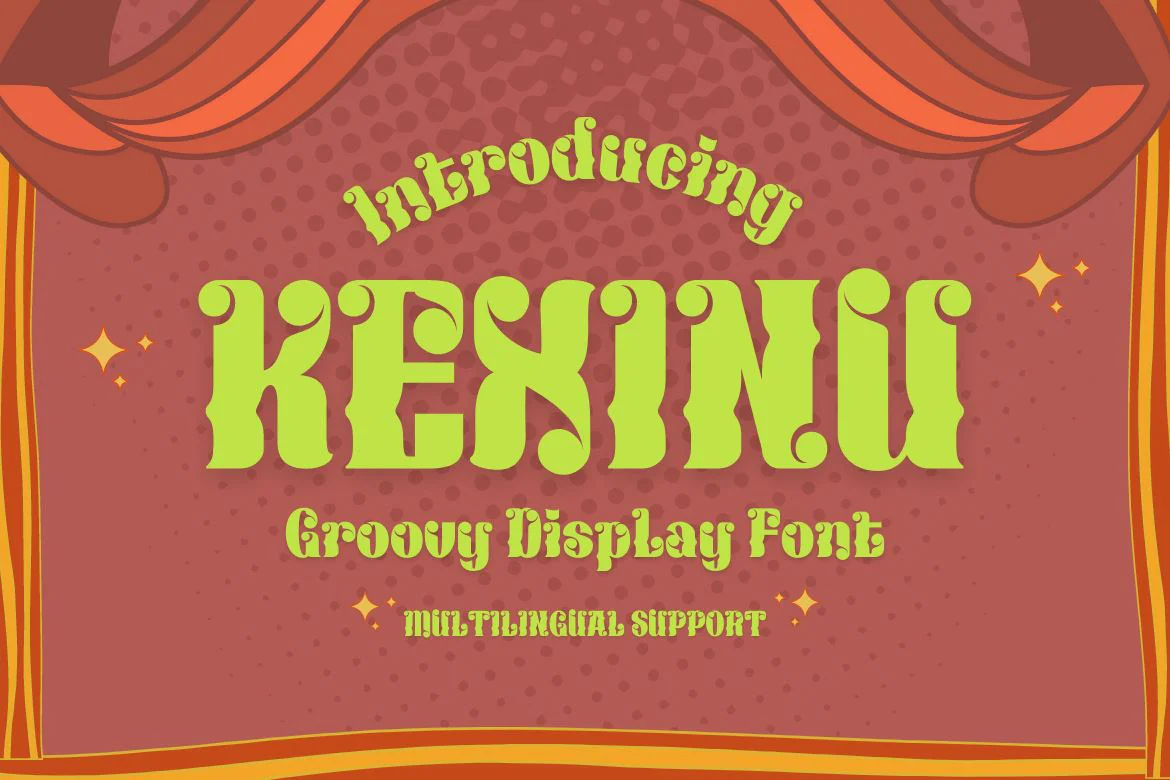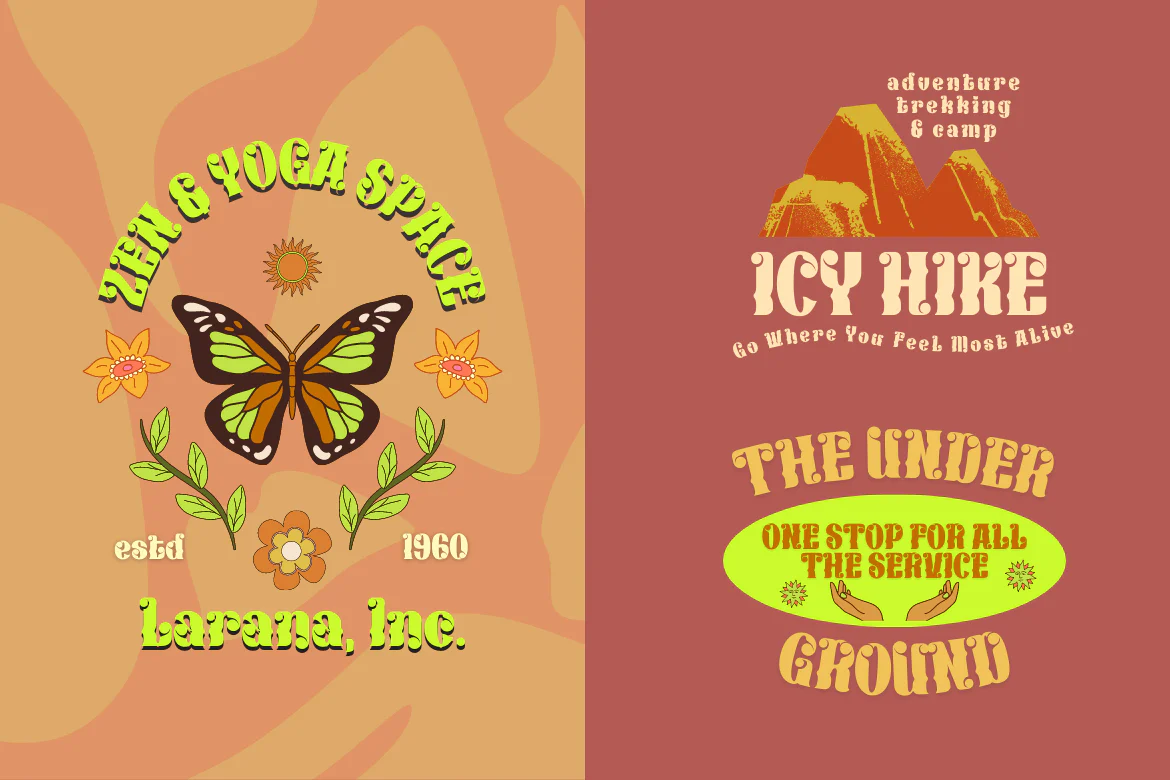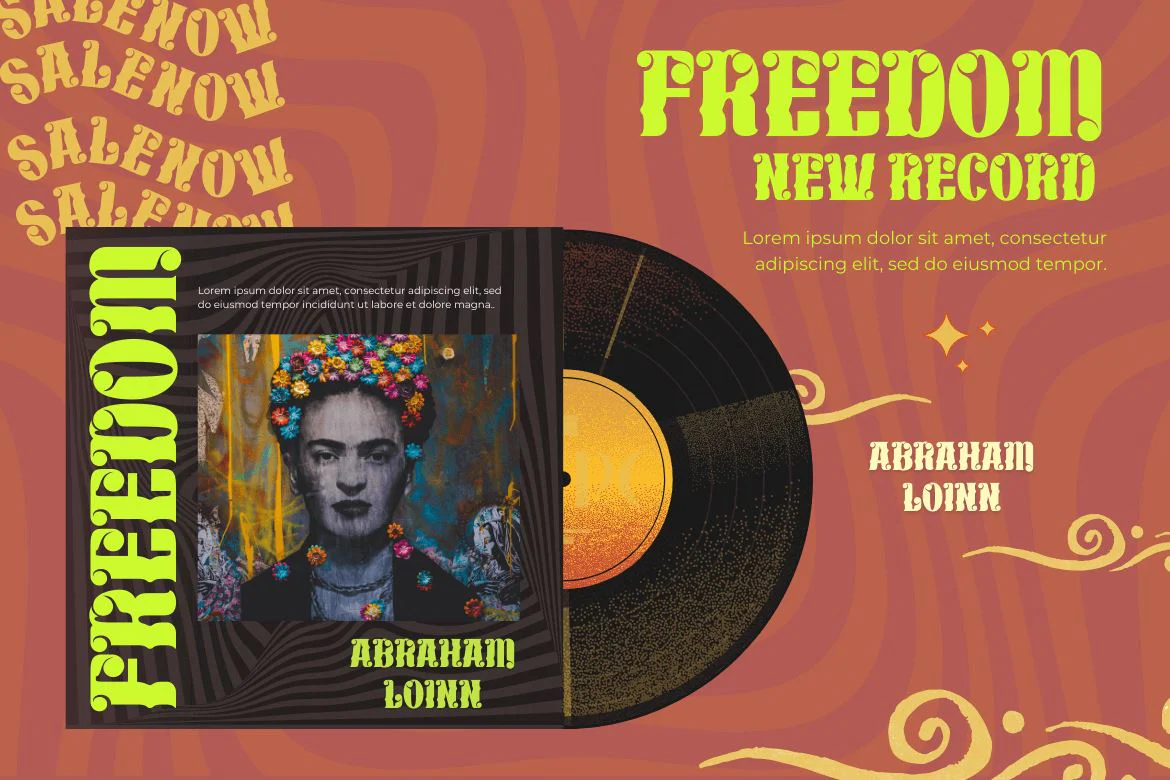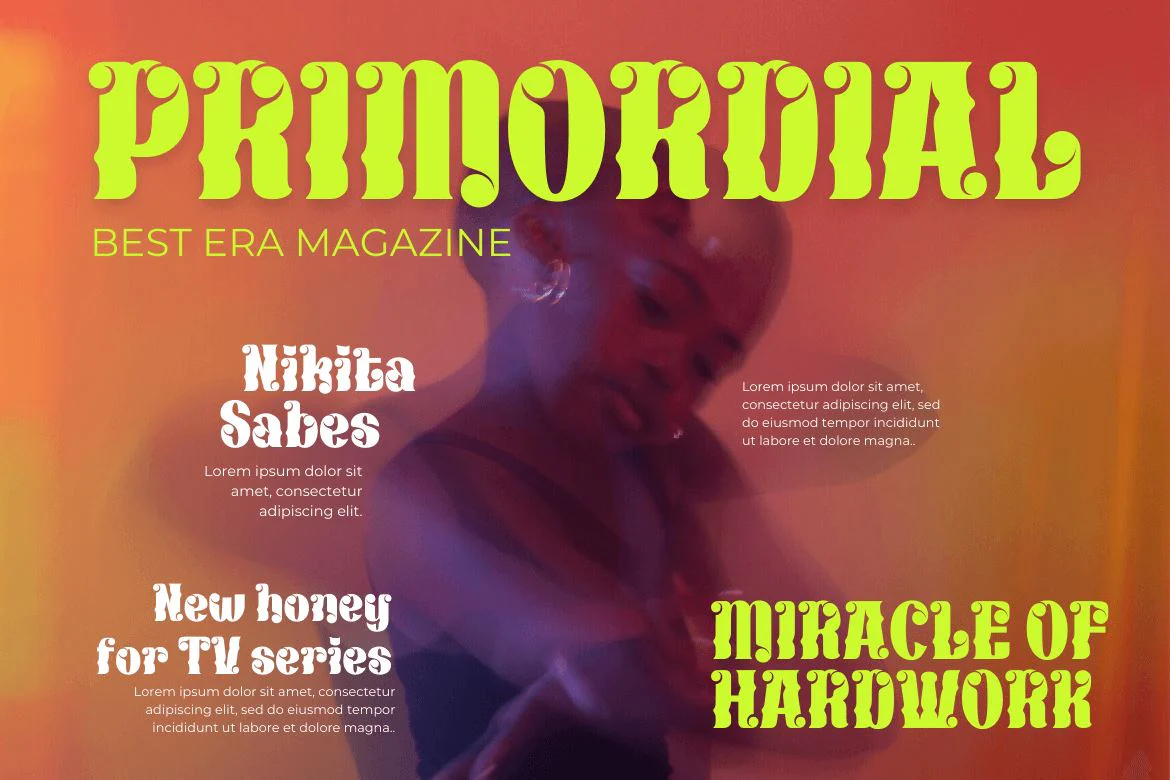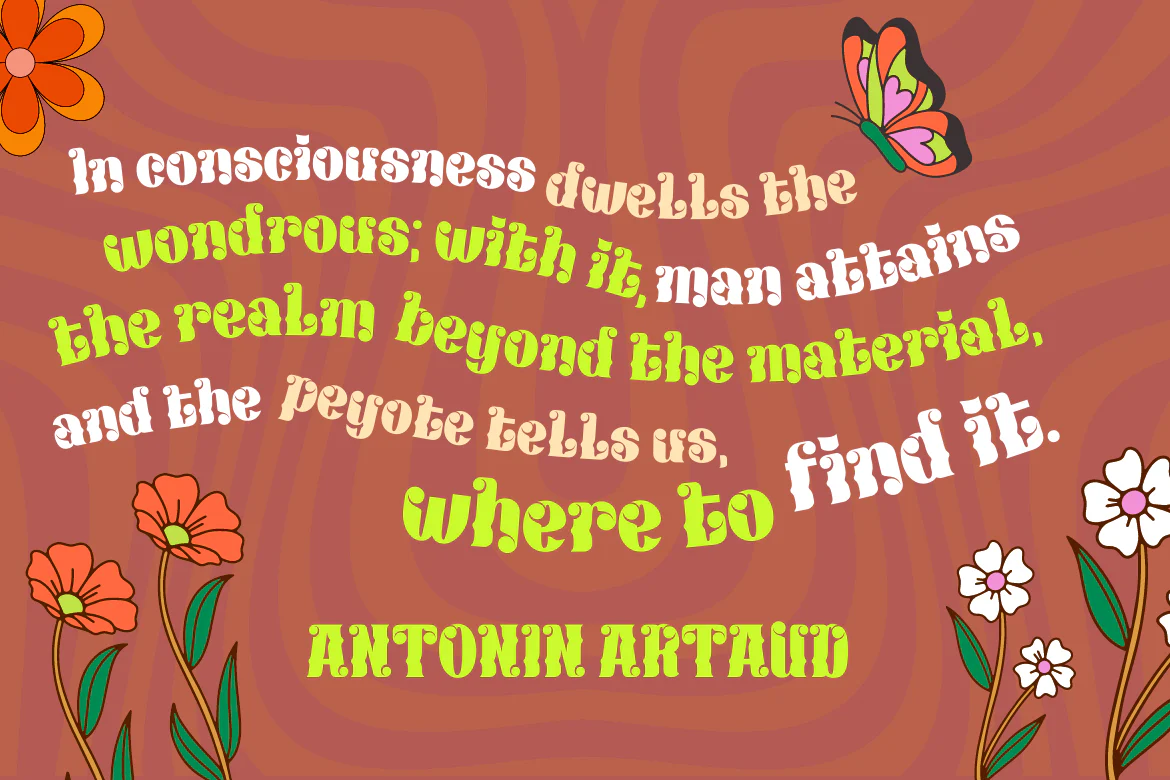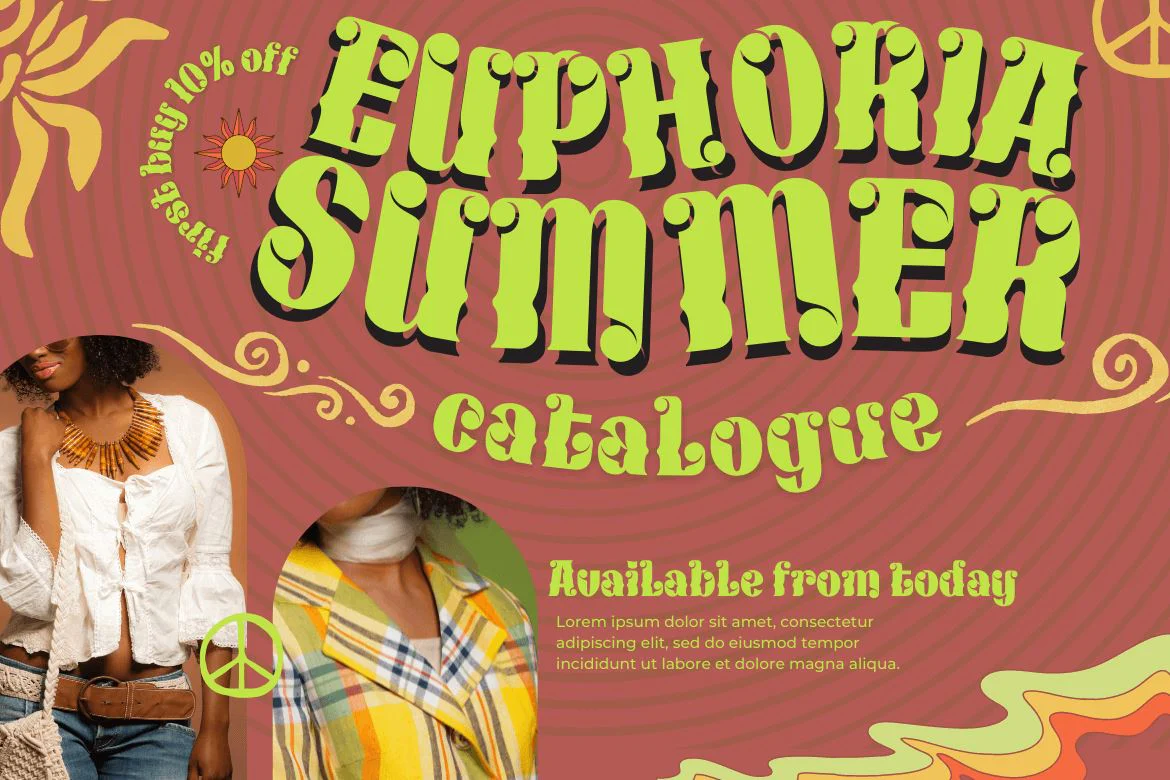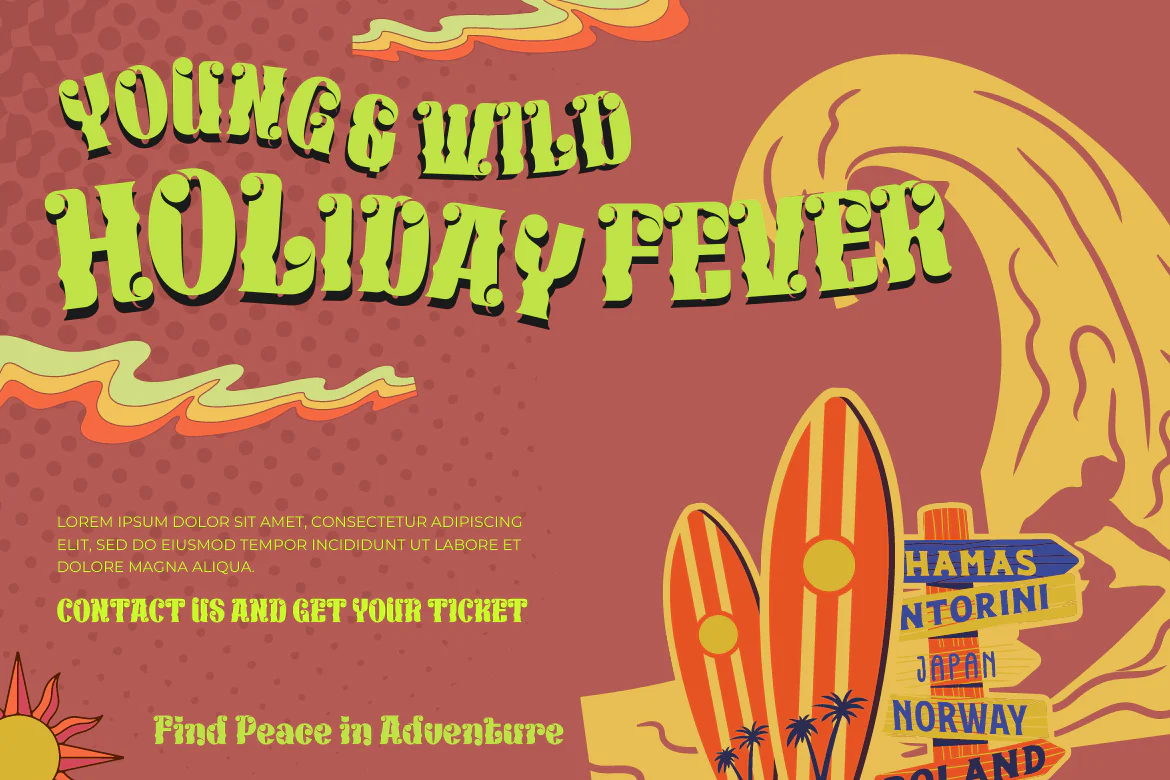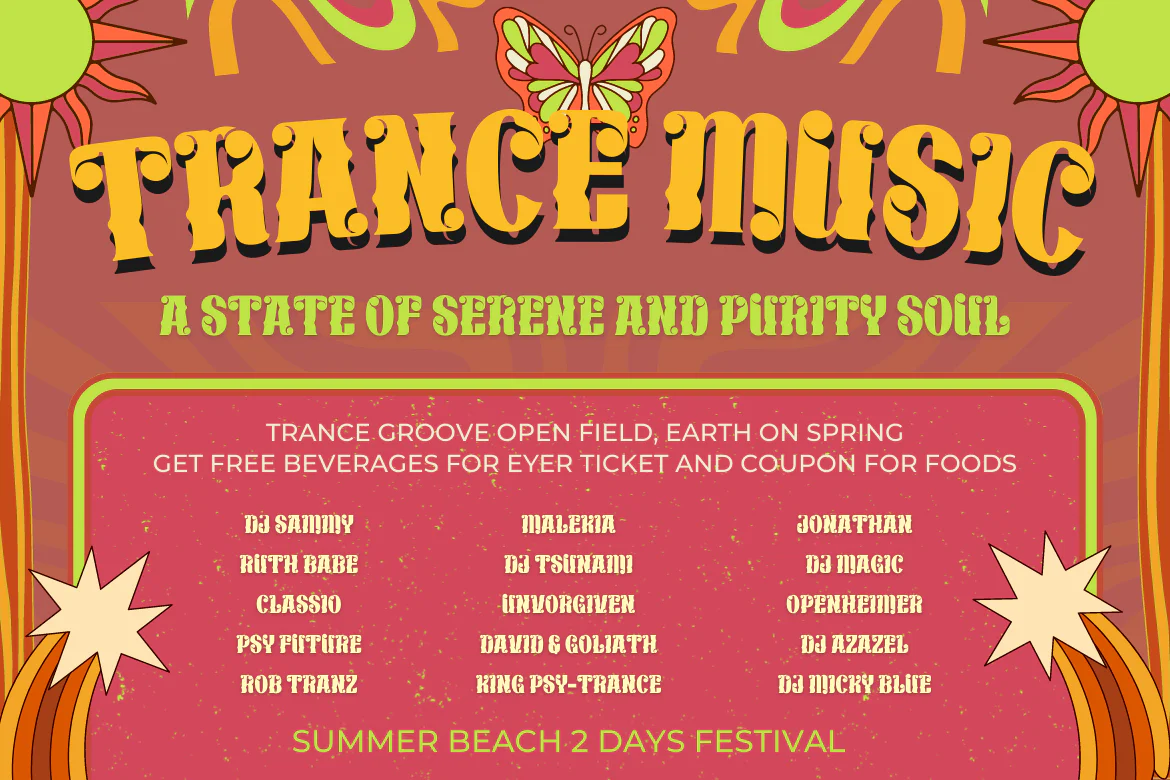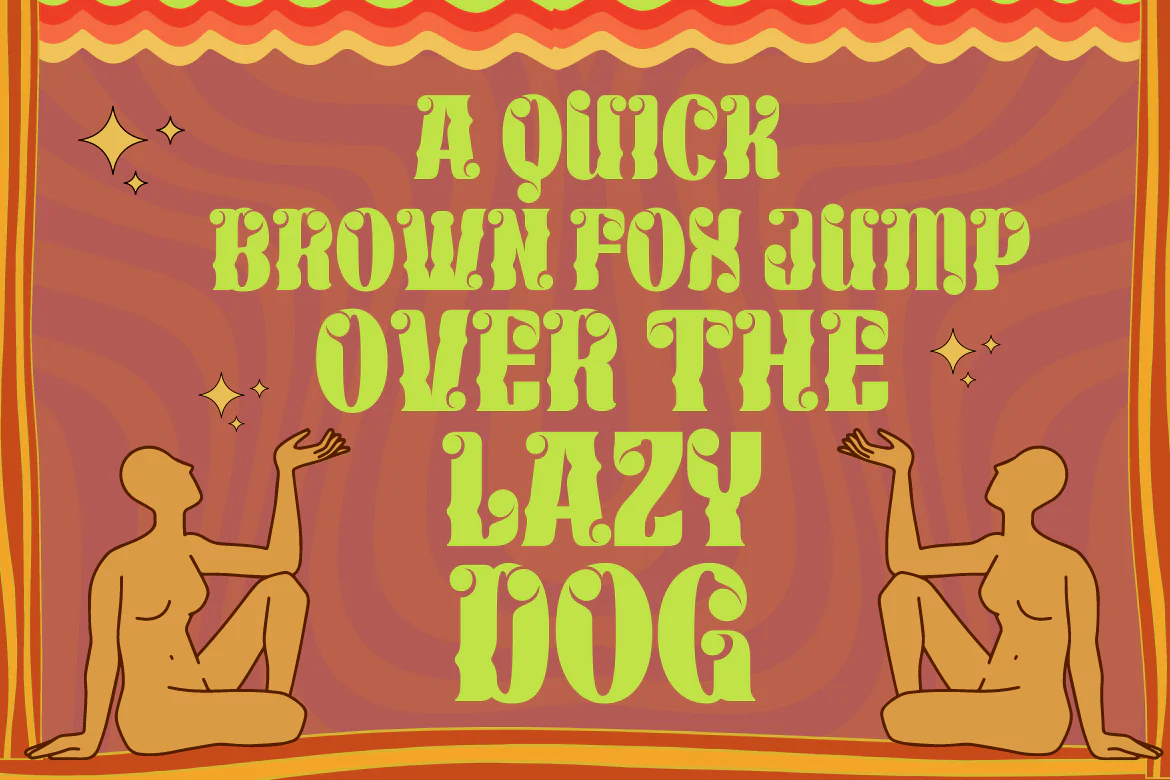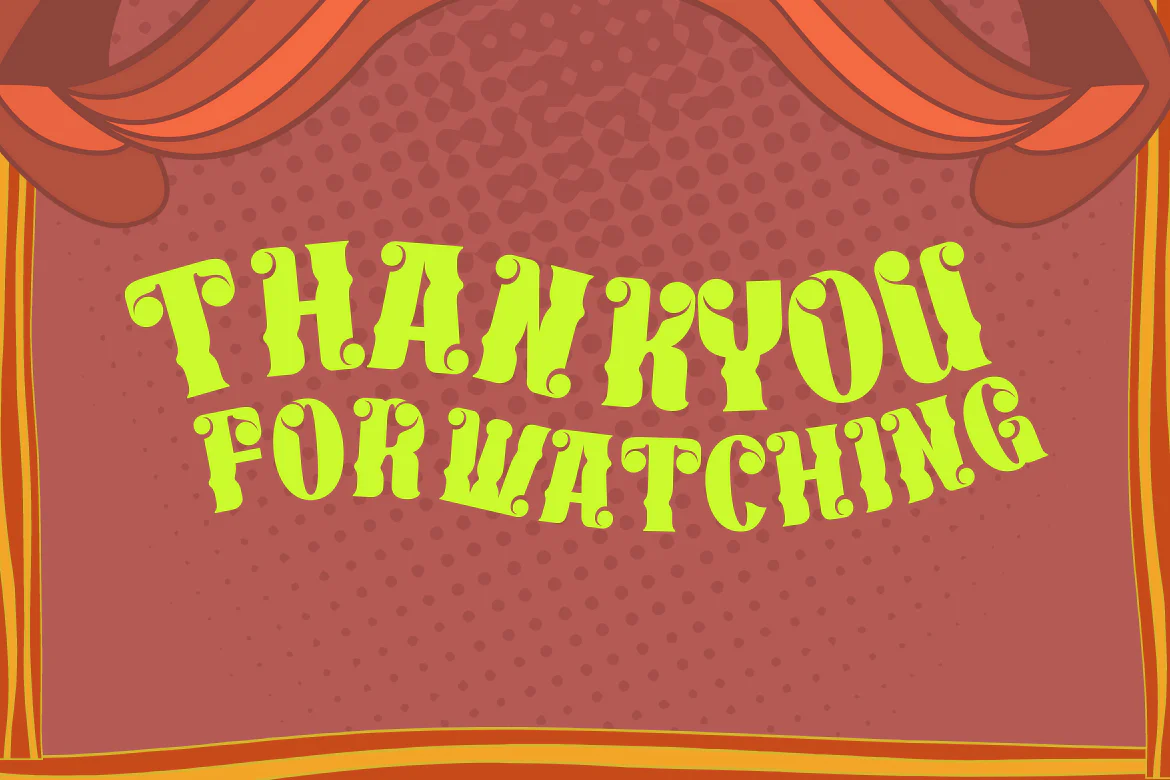
KEXINU | Groovy Retro Font
The KEXINU font is a psychedelic-inspired typeface. It has a stylish, bold, and fun character that is ideal if you need fun in your projects. Kexinu font also has an elegant and modern shape with a retro feel. This retro font has a bold and playful character, ideal for any design project.
This font is ideal for designs such as posters, banners, music, branding, logos, and more.
The KEXINU font is a psychedelic-inspired typeface. It has a stylish, bold, and fun character that is ideal if you need fun in your projects. Kexinu font also has an elegant and modern shape with a retro feel. This retro font has a bold and playful character, ideal for any design project.
This font is ideal for designs such as posters, banners, music, branding, logos, and more.